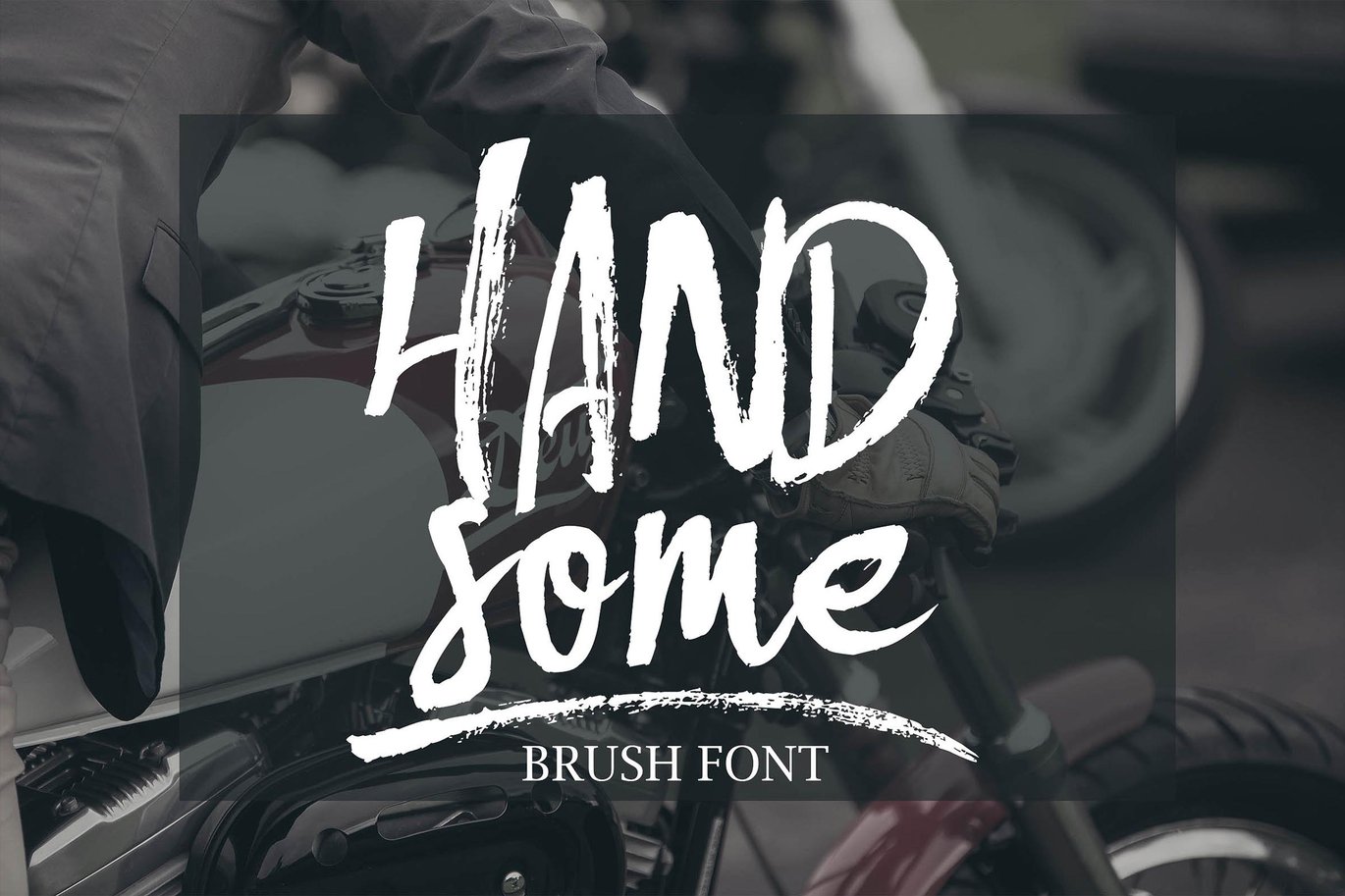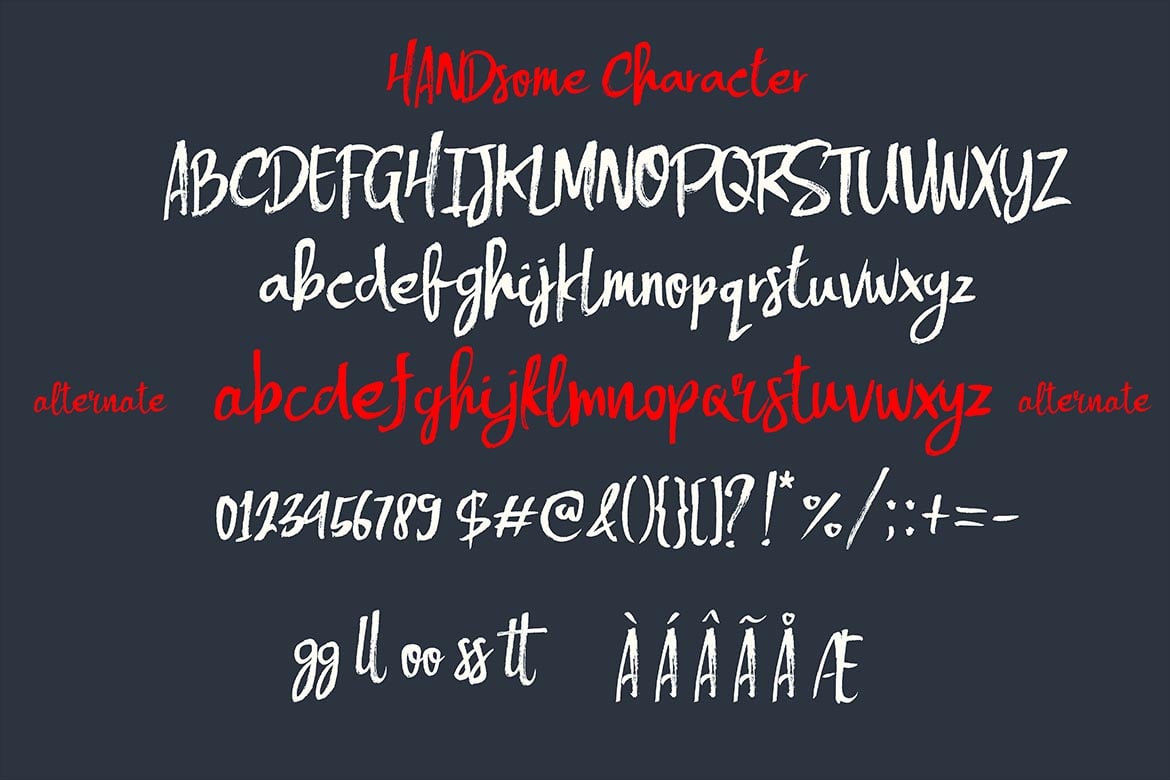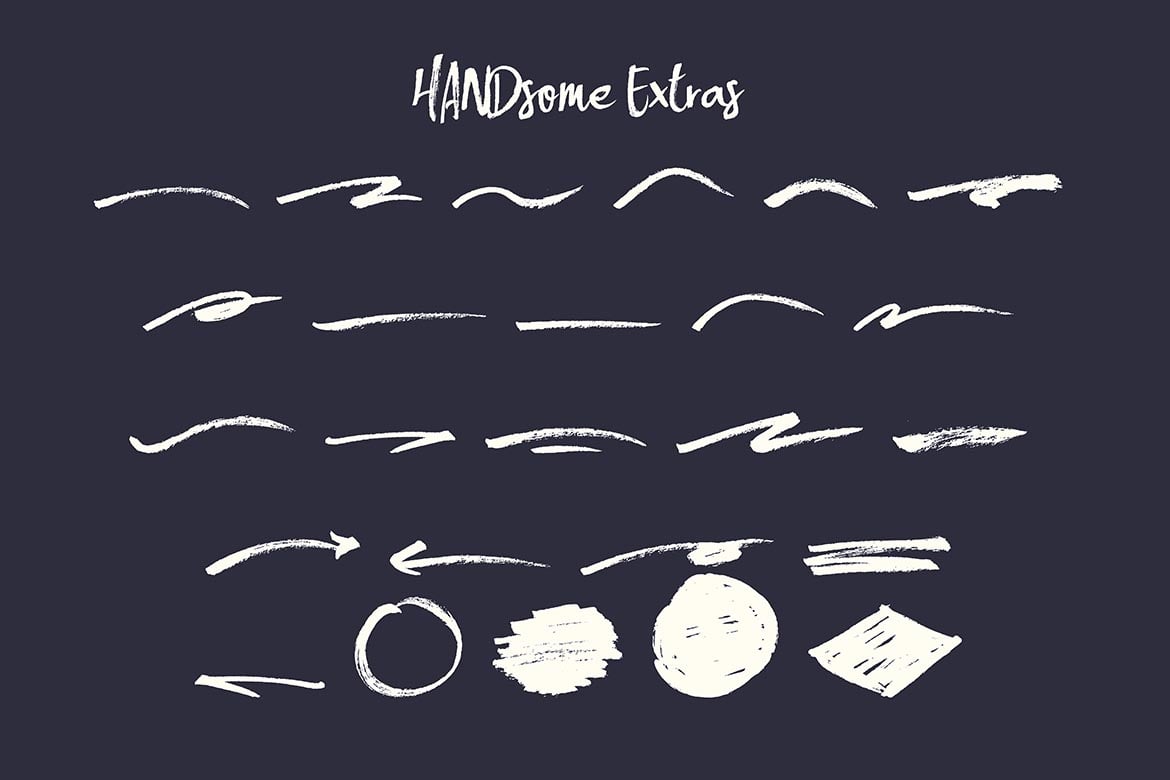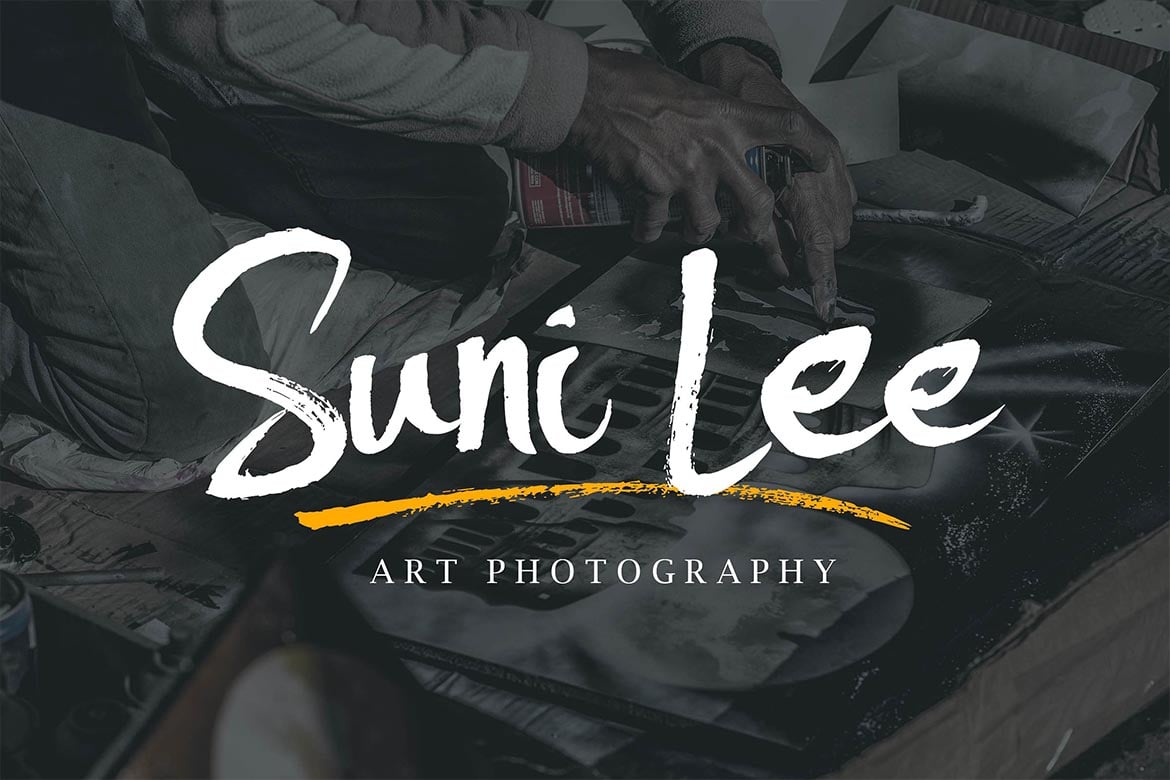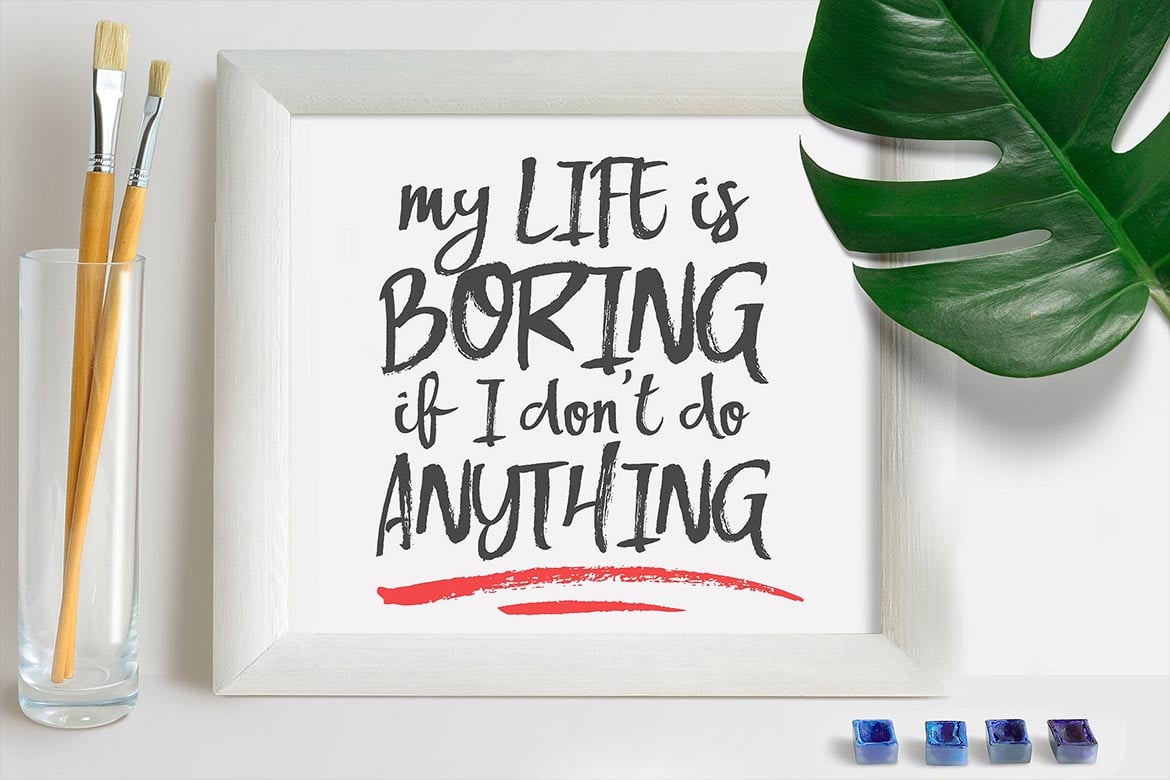
Handsome Brush Font
Handsome Script is casual brush script that is suitable for design projects ; logo, branding, poster, quotes, and any other designs. Handsome is unique, so natural and catchy.